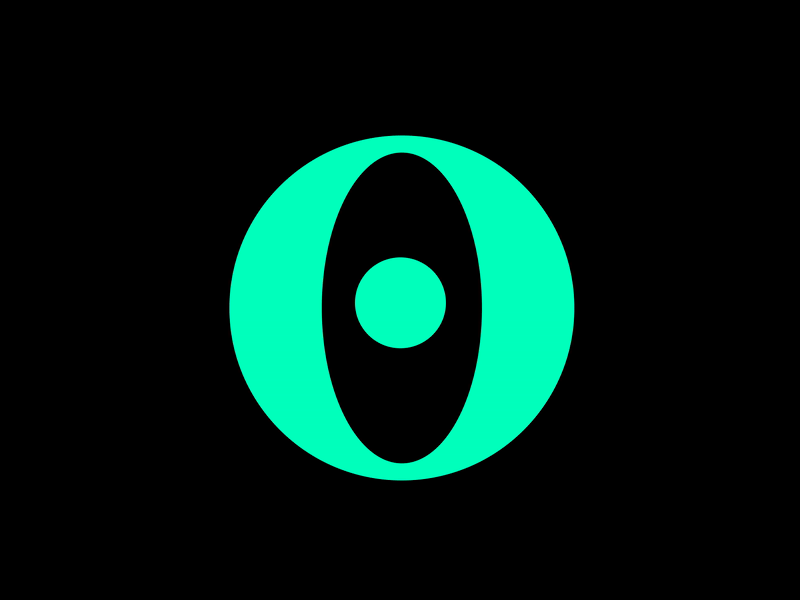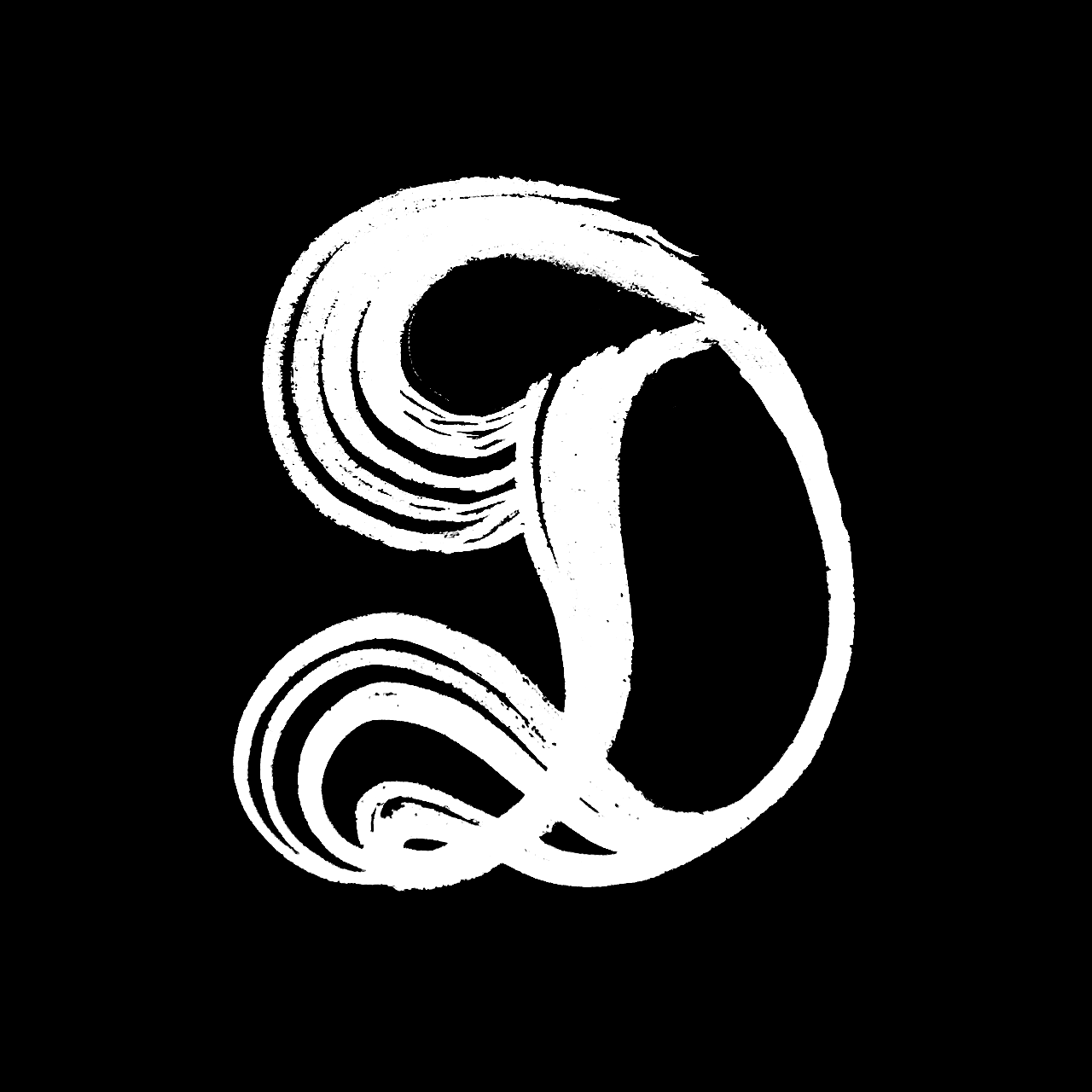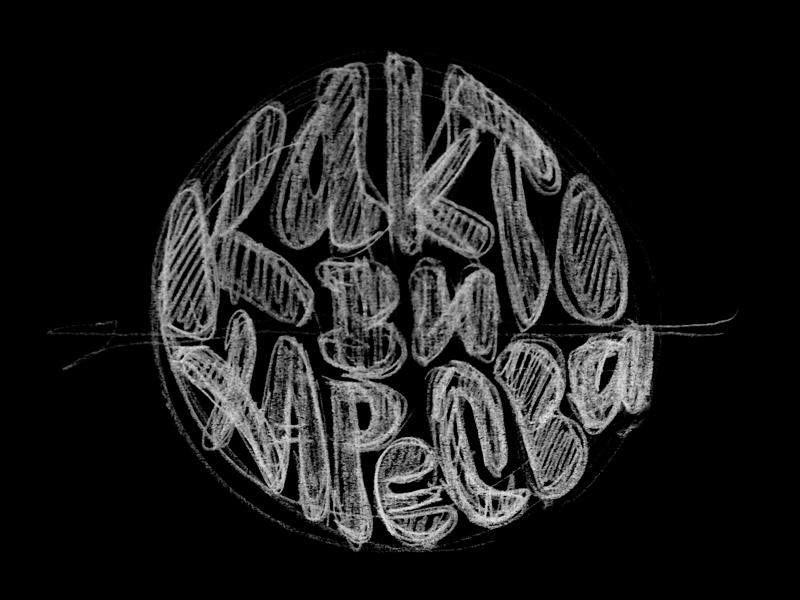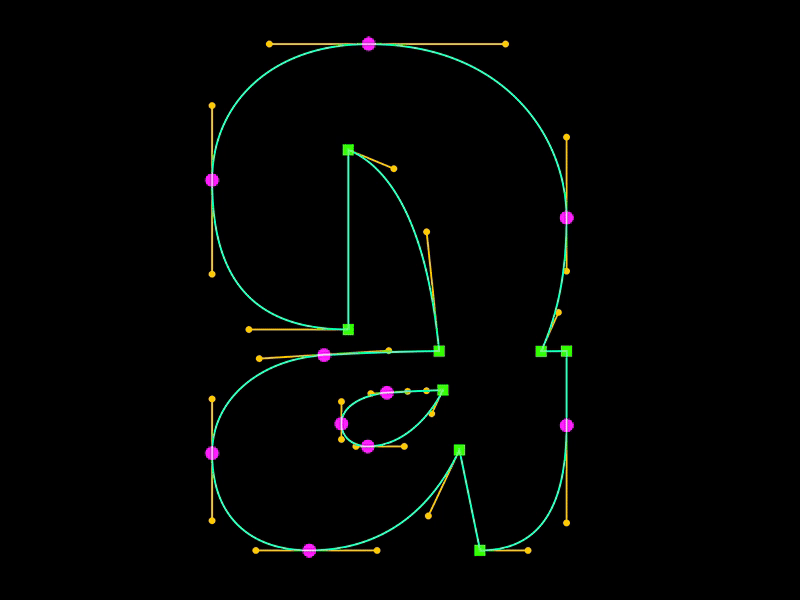
Sketching
Naturally, the journey starts with a lot of sketches, rough compositions and tests. We believe that every project, big or small, requires special attention in order to get the best results possible. Sometimes it takes hundreds of tries to get the letter shapes just right.
Exploring
Different tools that help find the logical structure of the letters. We like to experiment with the speed and the direction of writing, the materials and media. Shapes of letters are often explored using calligraphic techniques.
Add extremes
The devil is in the details! With years of experience we know how to achieve those professionally drawn vectors. We strive for the perfect balance in every single glyph, word and line.
Playing with space
We search for more creative directions to present your business in an unique and functioning way. Our goal is to make you look good.